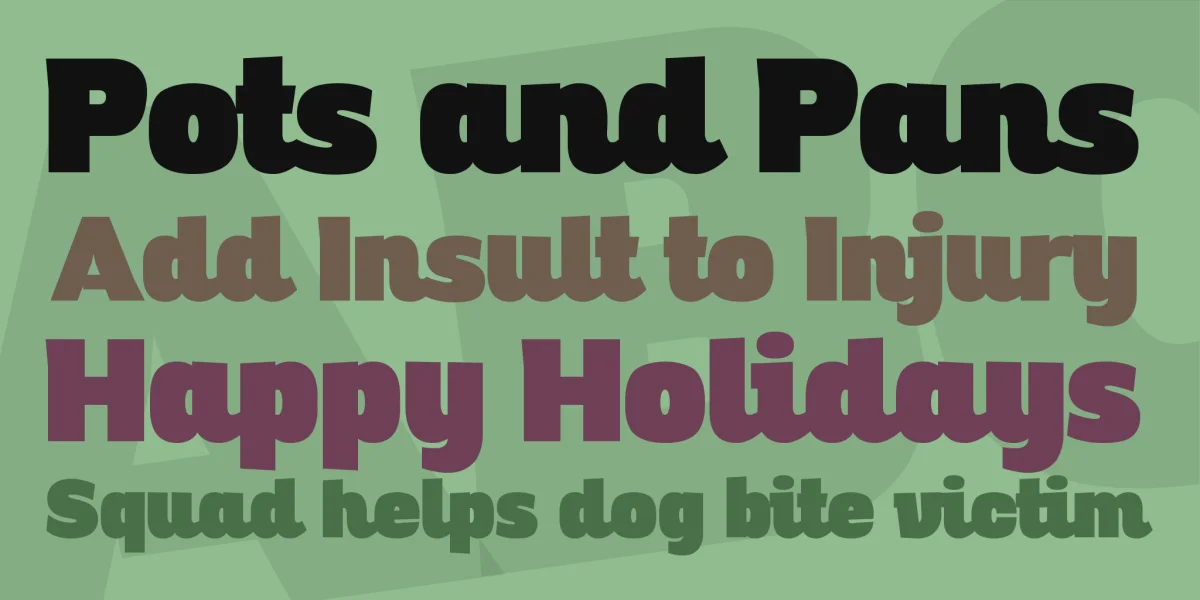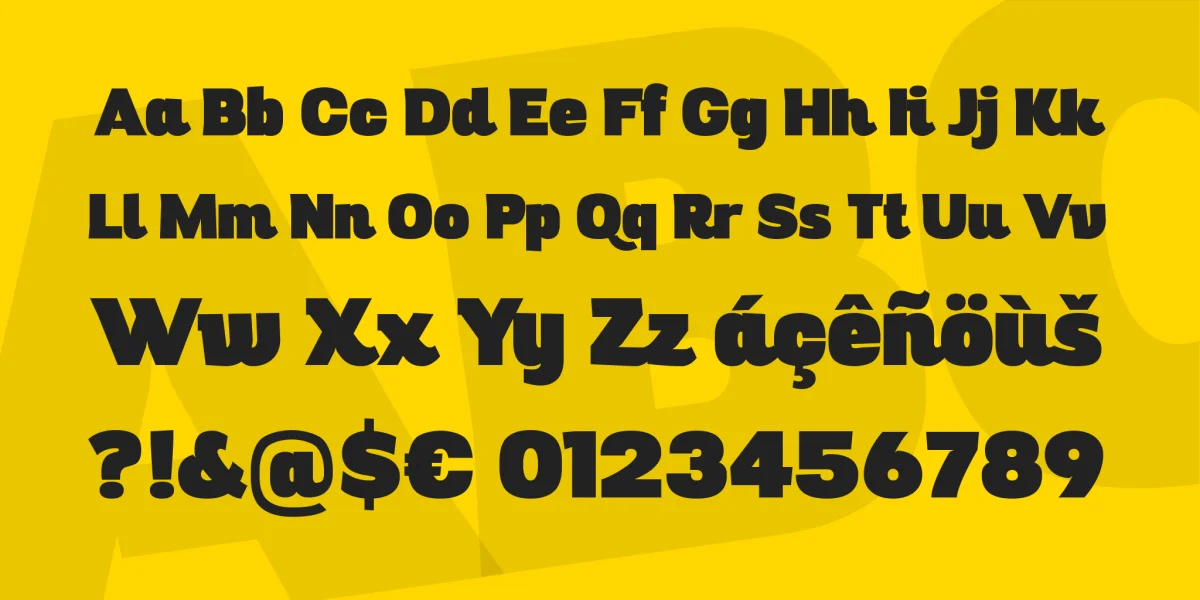
Digitalino is a soft, rounded font created for the logo of a both digital and paper magazine. Its tight kerning and high readability make it the perfect typeface for headlines.